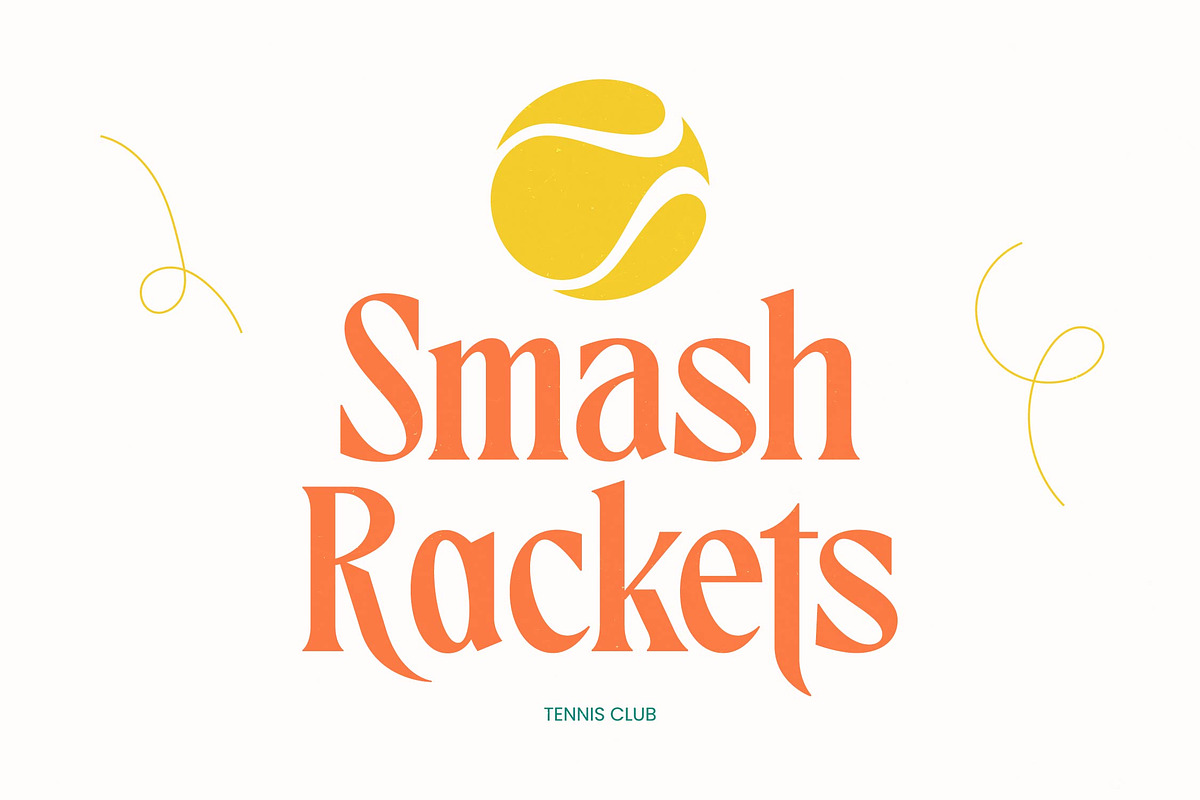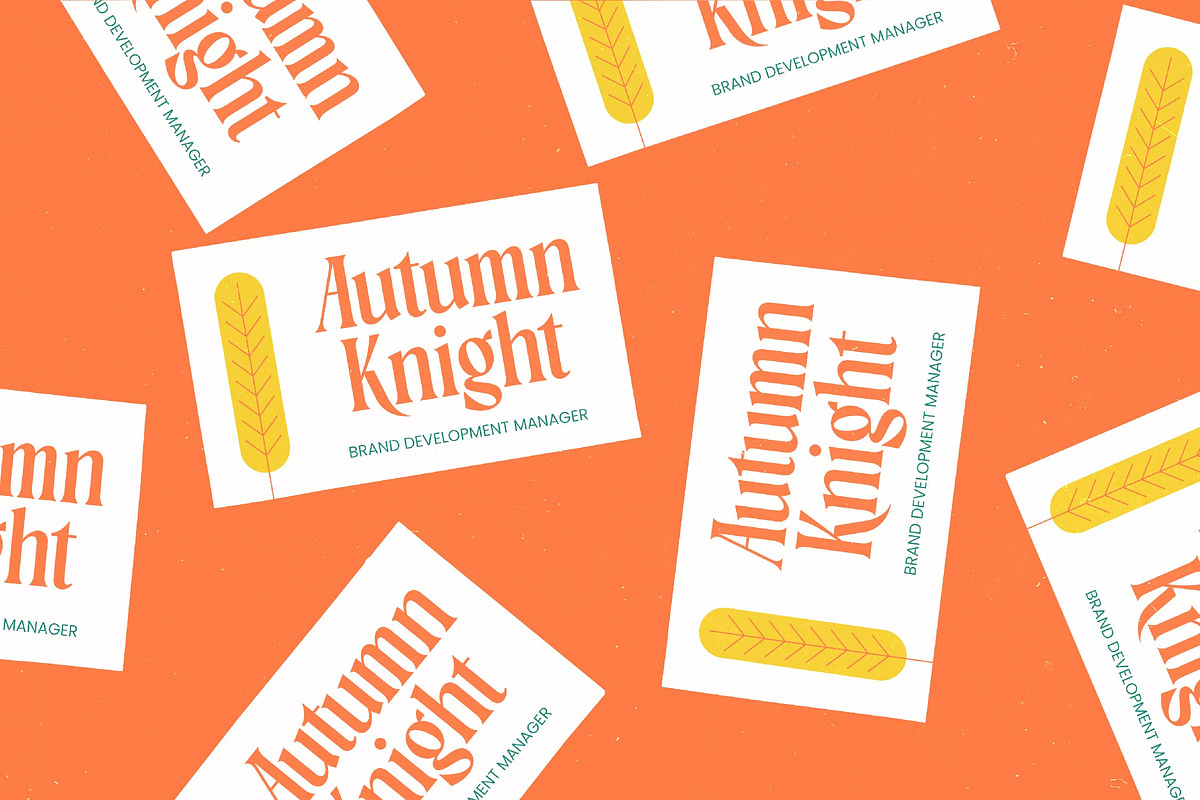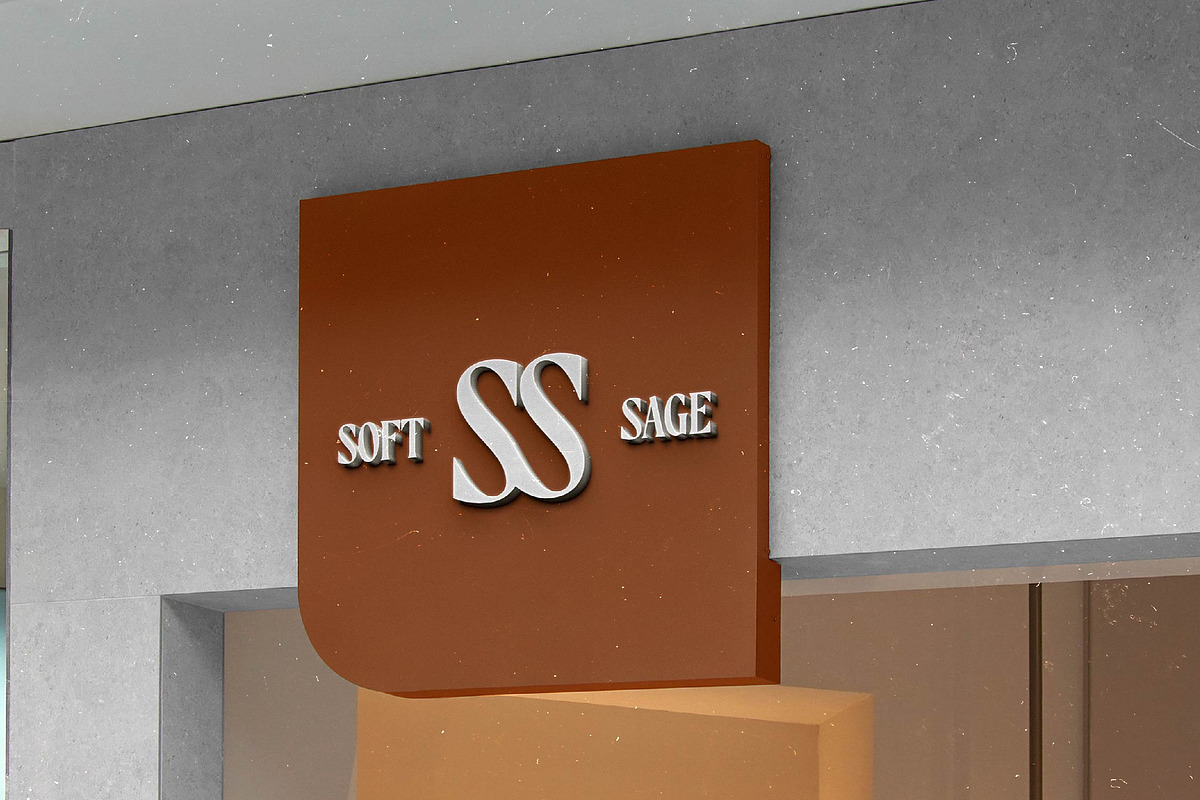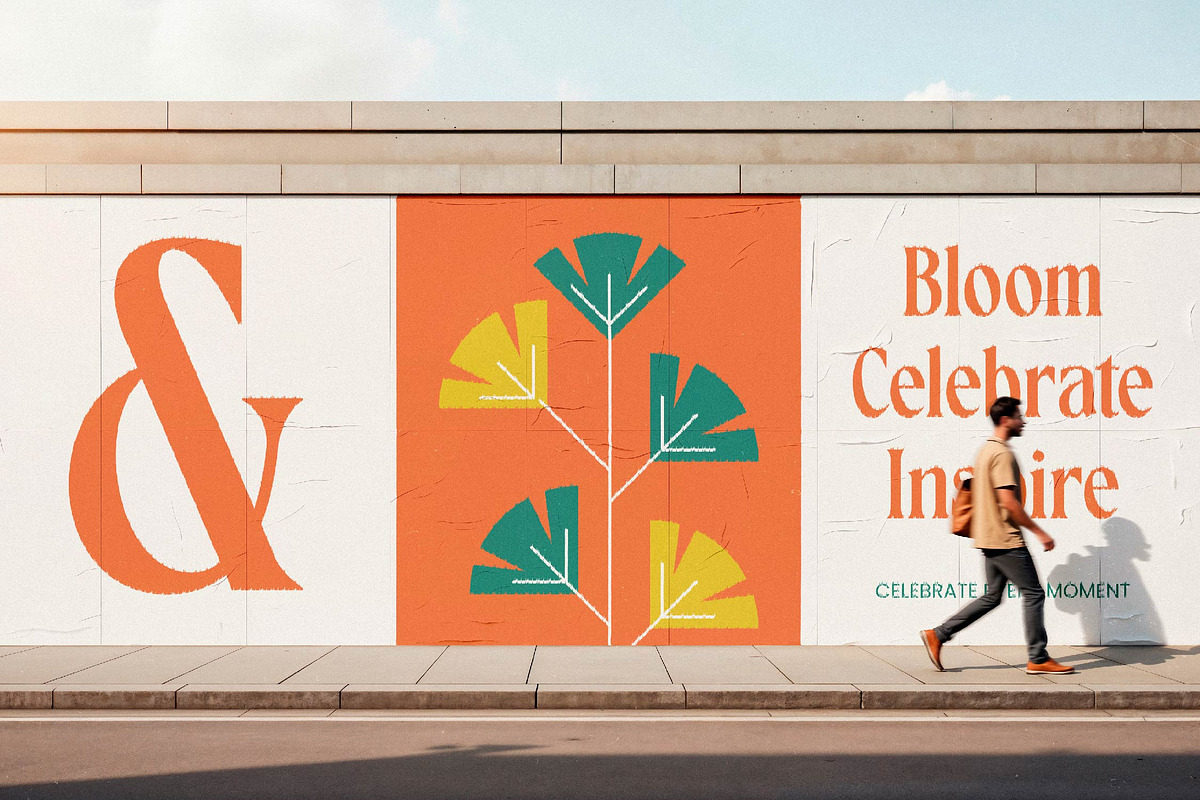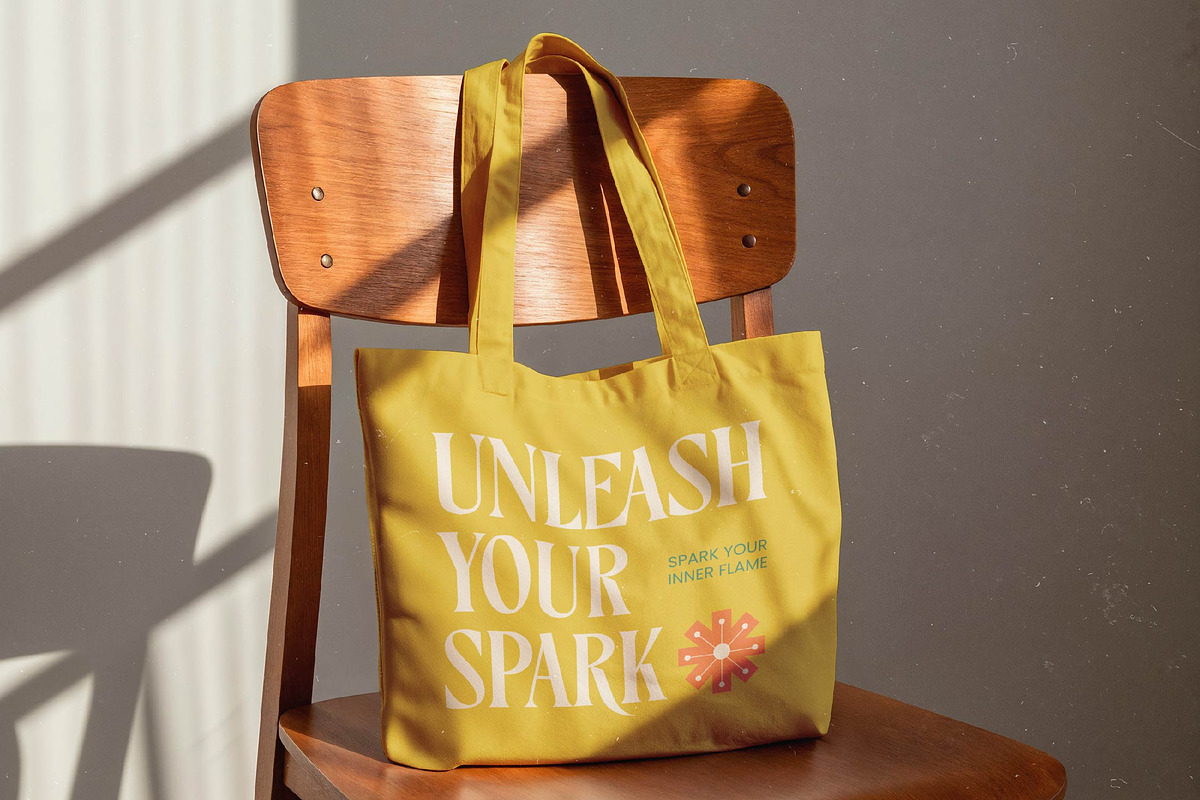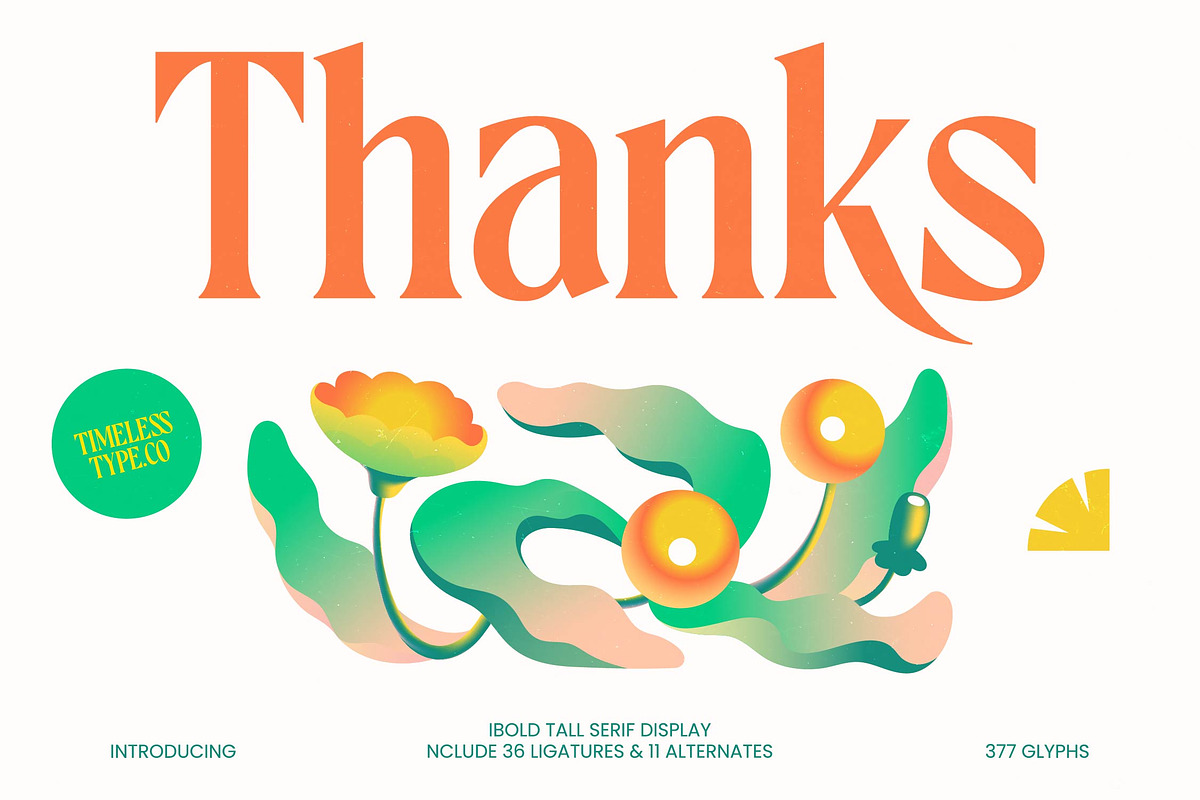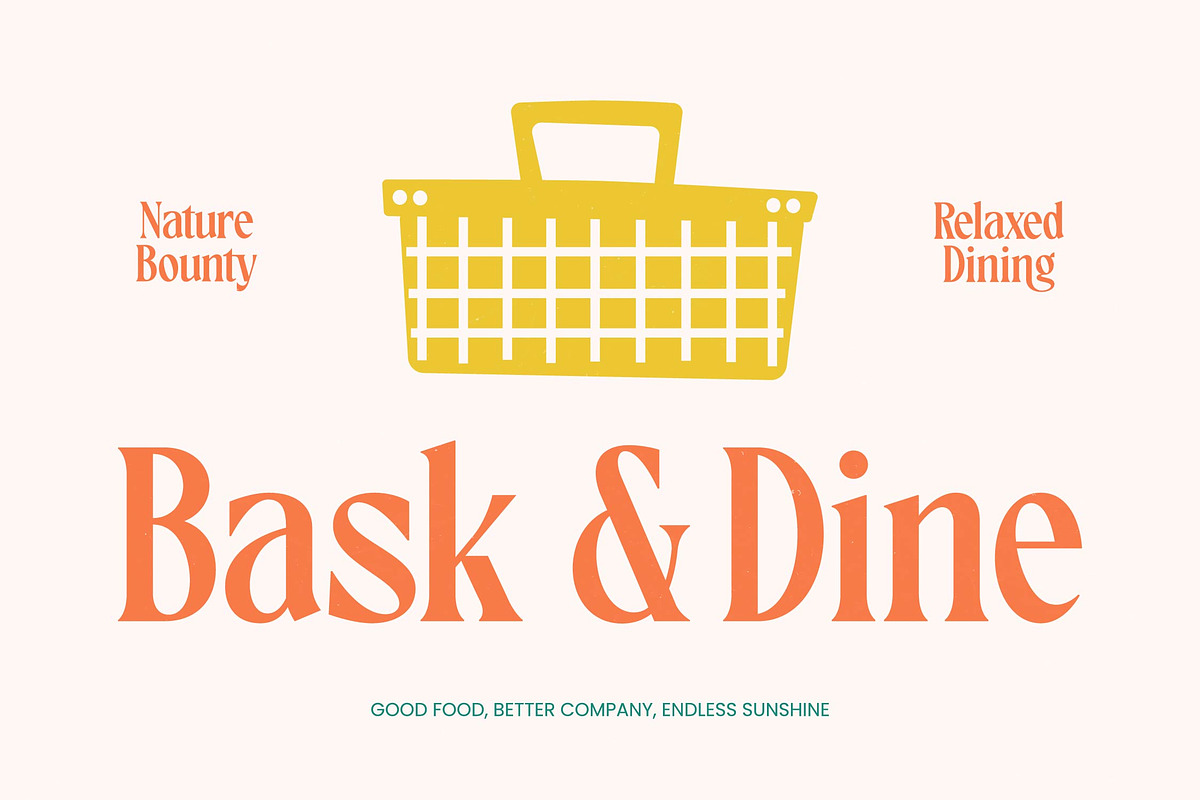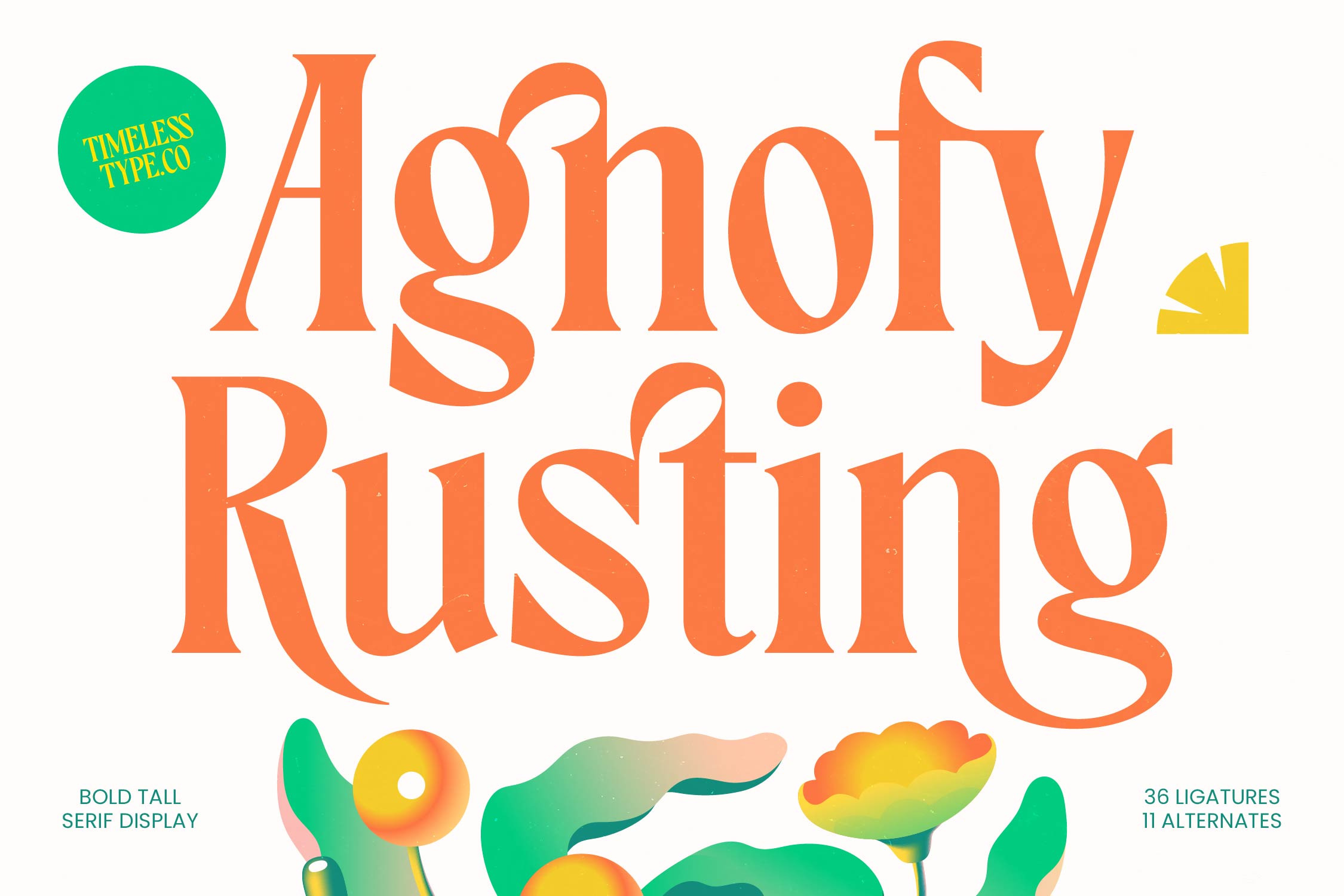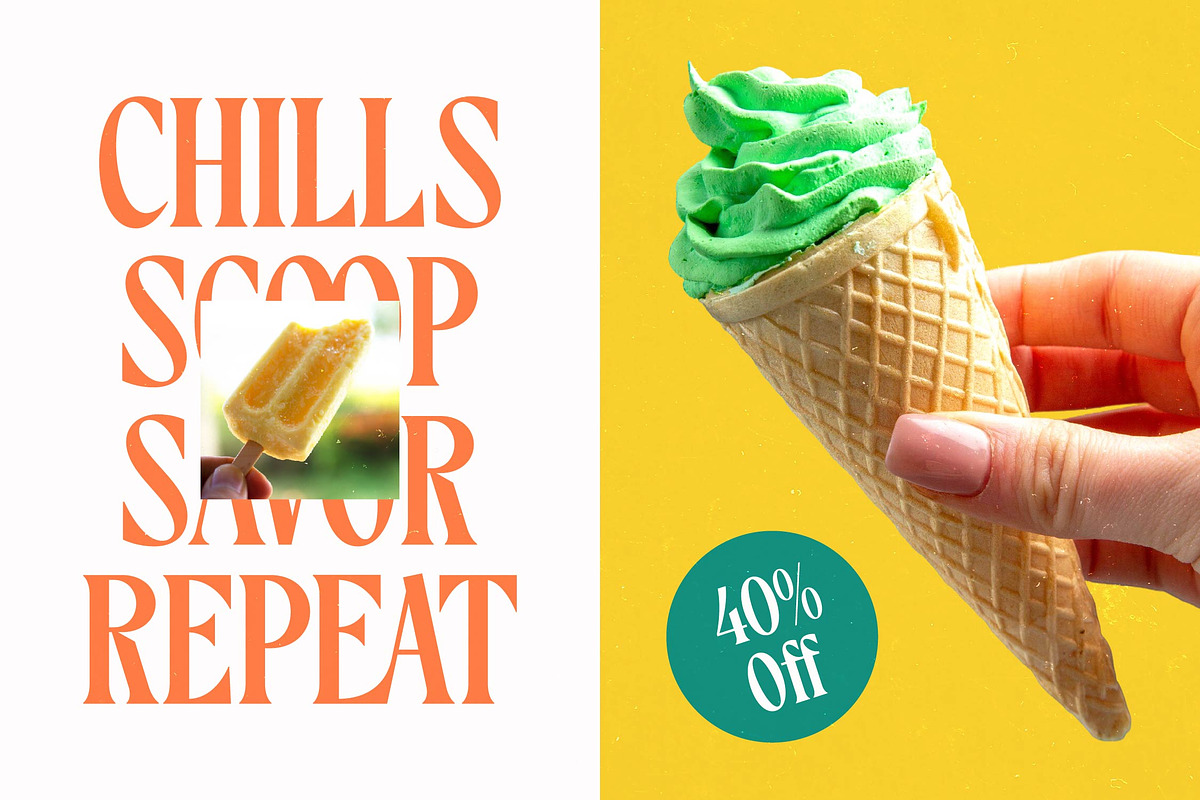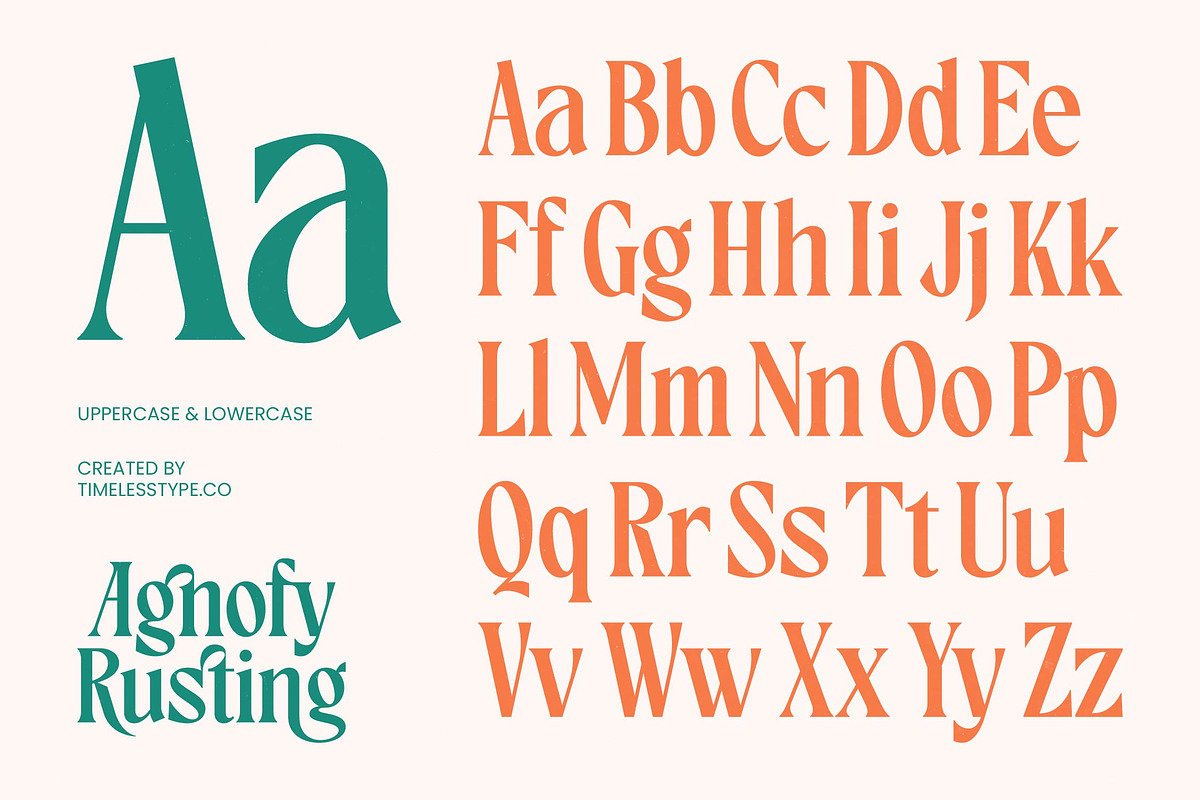
Agnofy Rusting Bold Tall Serif Font
Agnofy Rusting – Bold Tall Serif Display , Elevate your visual identity with a typeface that radiates sophisticated grandeur and modern refinement. Agnofy Rusting – Bold Tall Serif Display is a premium display font that masterfully balances high-contrast strokes with a vintage-inspired silhouette. Its elongated letterforms and daring serifs create a sense of vertical rhythm, making Agnofy Rusting – Bold Tall Serif Display an ideal choice for bold headlines that require a commanding presence and timeless appeal.
Unlock the full potential of your creative vision with a font engineered for maximum impact and unmatched style. Agnofy Rusting – Bold Tall Serif Display is perfect for luxury branding, premium packaging, and high-end editorial design. Its 36 professional ligatures and 11 stylish alternates allow for endless customization, enabling Agnofy Rusting – Bold Tall Serif Display to create unique logotypes and distinctive posters that captivate audiences and elevate brand perception in the fashion and lifestyle sectors.
Expand your creative reach effortlessly and ensure your message resonates with audiences on a global scale. With its extensive multilingual support, Agnofy Rusting – Bold Tall Serif Display adapts seamlessly across global markets, making it incredibly versatile for international projects. This global adaptability ensures that your visual storytelling remains cohesive and professional across different cultures, providing a unified brand experience with Agnofy Rusting – Bold Tall Serif Display in any linguistic context.
Invest in a typographic asset that promises to transform your design workflow and final aesthetic output. Agnofy Rusting – Bold Tall Serif Display offers the perfect blend of artistic flair and commercial functionality, making it an essential tool for modern designers. Whether you are crafting invitations or digital interfaces, Agnofy Rusting – Bold Tall Serif Display adds a layer of elegance and authority that is simply unmatched in the market.
Ligatures and Alternative Style Stylistic Set